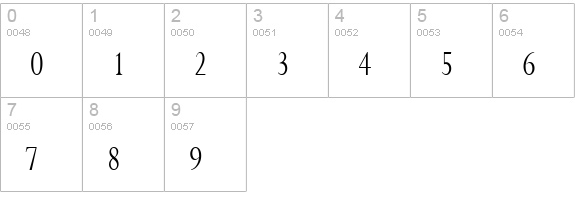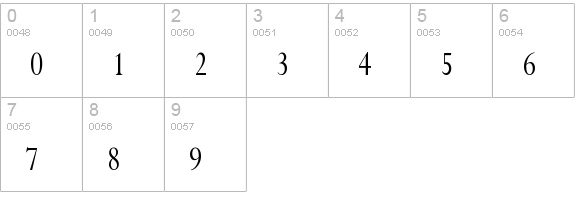
Rapid Thin Normal is a delicate, low-contrast variant in the Rapid typeface family \xE2\x80\x94 well suited to fashion editorial, minimal branding, and high-contrast display.
Rapid Thin Normal font is a sleek and sophisticated typeface that embodies elegance and simplicity. With its thin strokes and clean lines, this font exudes a modern and contemporary feel, making it perfect for a wide range of design projects. Whether you are designing a logo, creating a website, or crafting a print advertisement, Rapid Thin Normal font will add a touch of sophistication and professionalism to your work. Its versatility allows it to be used in both headline and body text, ensuring that your message is conveyed with clarity and style. One of the greatest advantages of Rapid Thin Normal font is that it is freely available to download at FontsMarket.com. This means that you can incorporate this stunning font into your projects without any additional cost. Its availability for free ensures that designers of all levels have access to a high-quality font that can elevate their work to new heights. With Rapid Thin Normal font, you can create visually stunning designs that leave a lasting impression on your audience. Whether you are designing for print or digital media, this font is sure to captivate and engage your viewers. Its clean and modern aesthetic will bring a sense of sophistication to any project, making it a must-have font for designers looking to make a lasting impact. So don't hesitate - download Rapid Thin Normal font today from FontsMarket.com and unlock the endless possibilities it offers for your design endeavors. With its sleek lines, elegant curves, and timeless appeal, this font will undoubtedly become a valuable asset in your creative toolkit.